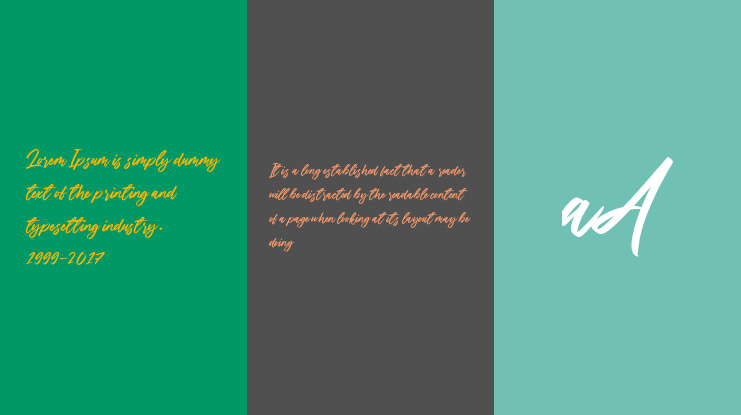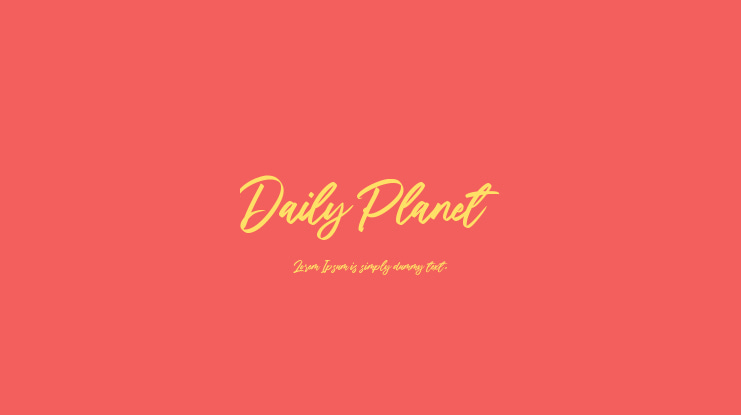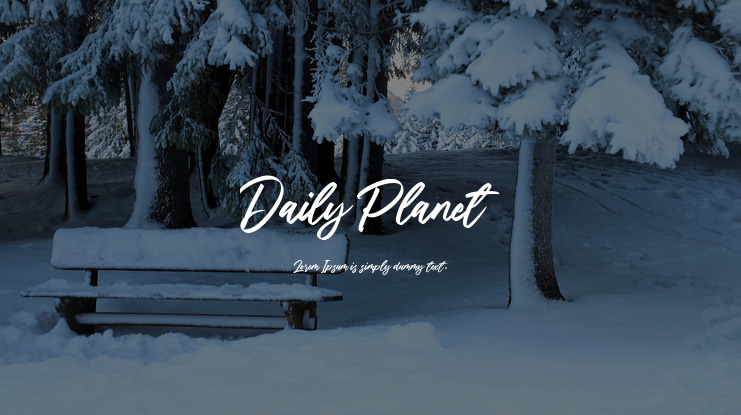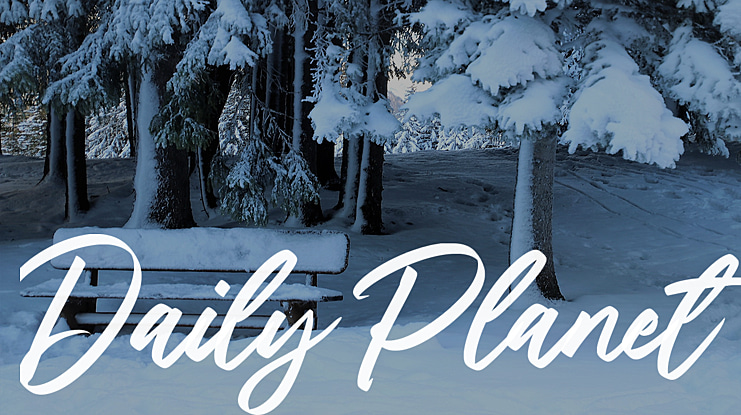
Daily Planet Font
Proudly Present, Daily Planet Handbrush Font.
Daily Planet is a modern brush font that is perfect for any title, shop name and logo. and also very suitable for product packaging, branding projects, megazine, social media, or just used to express words over the background.